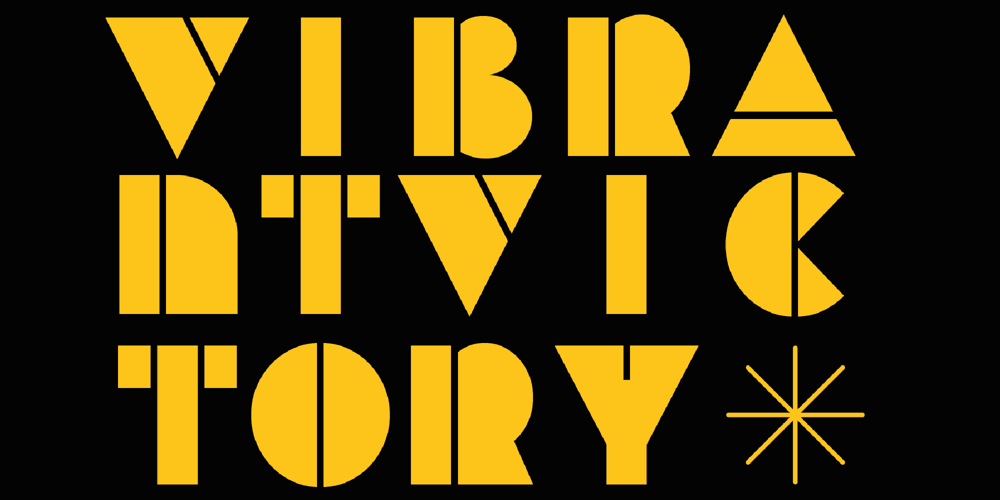
Vibrant Victory Font Family was designed by Igor Ovsyannykov and published by Hipfonts. Vibrant Victory contains 1 styles and family package options. Introducing Vibrant Victory, a stunning and captivating font that will inject a burst of energy into your designs. With its bold, thick lines and playful geometric shapes, this typeface exudes a sense of joy and excitement.Its carefully crafted design captures the essence of modern aesthetics while maintaining a unique and charming appeal.Whether you’re creating eye-catching headlines, vibrant logos, or engaging posters, Vibrant Victory is the perfect choice to convey a sense of dynamism and positivity.